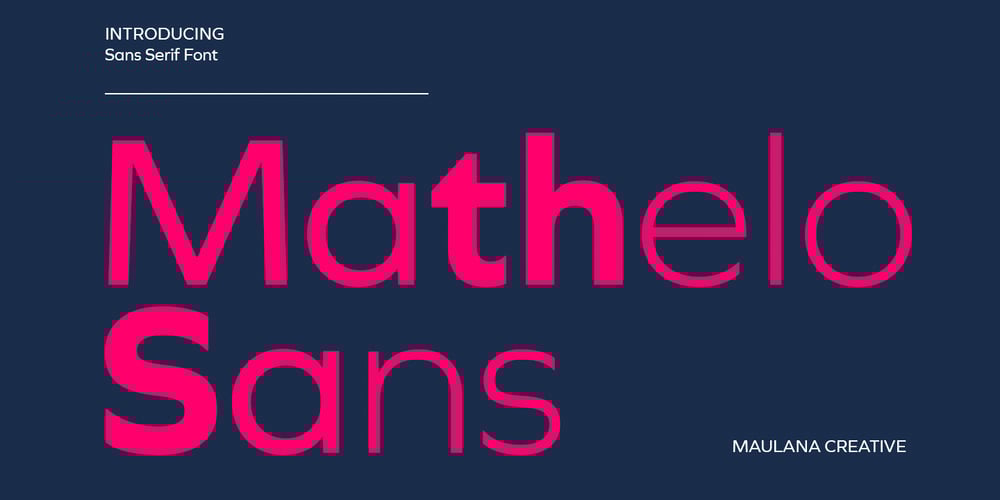
Mathelo Font Family was designed by Gilang Maulana and published by Maulana Creative. Mathelo contains 3 styles and family package options. Mathelo is a modern semi geo-humanist sans font. With three different weight stroke, fun character with a bit of ligatures and stylistic alternates. To give you an extra creative work. Mathelo font support multilingual more than 100+ language. This font is good for logo design, Social media, Movie Titles, Books Titles, a short text even a long text letter and good for your secondary text font with sans or serif. Make a stunning work with Mathelo font. Cheers, Maulana Creative